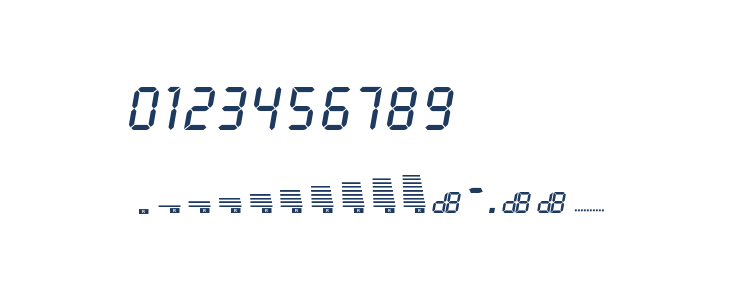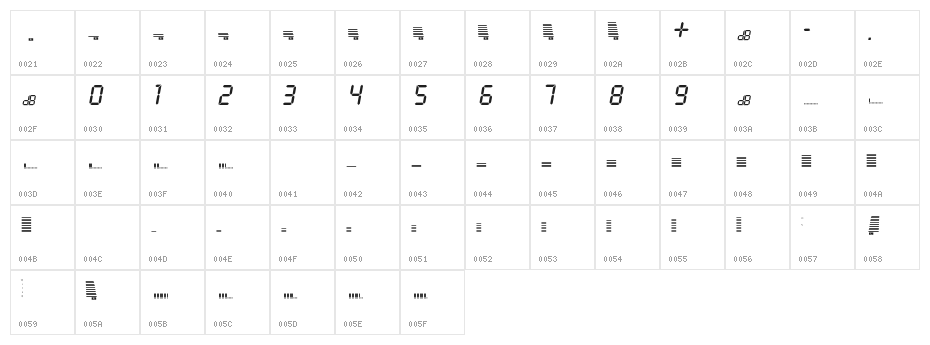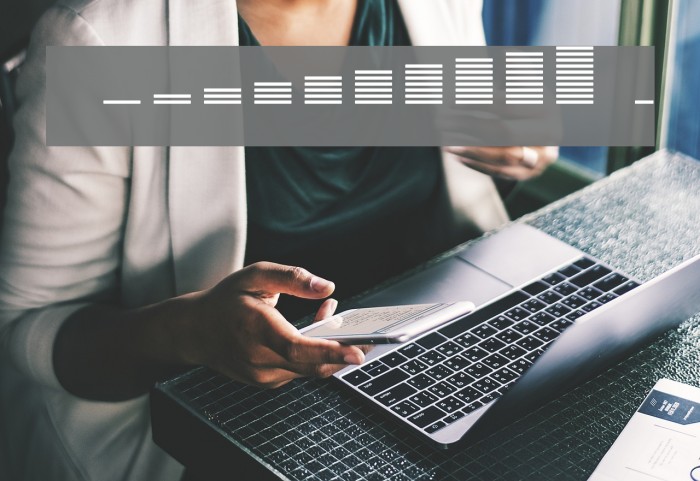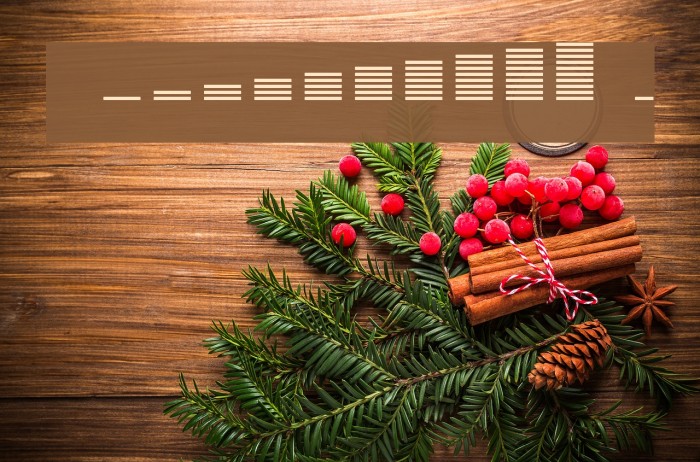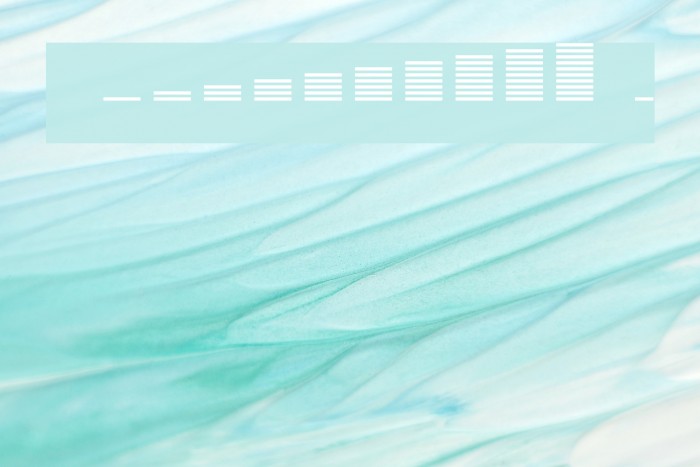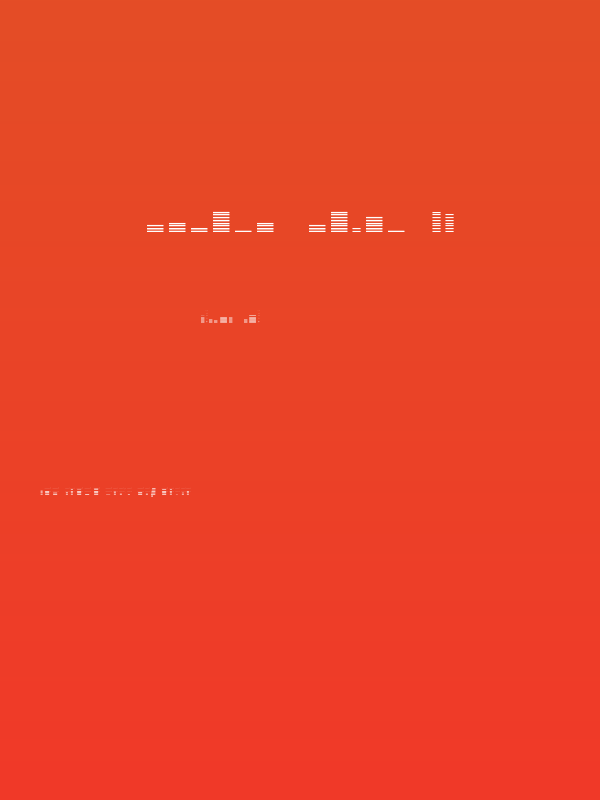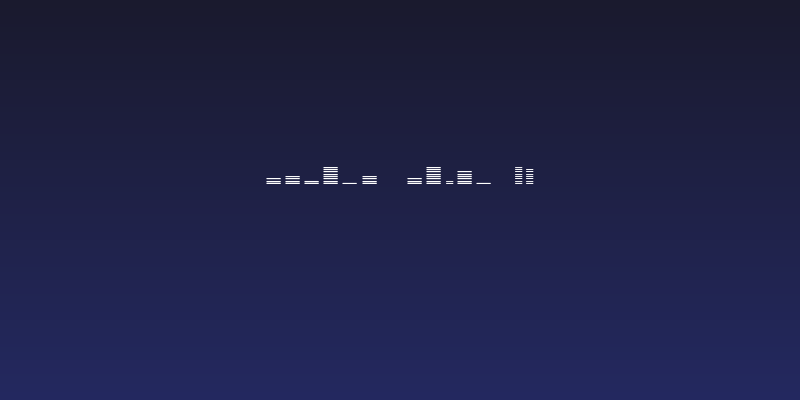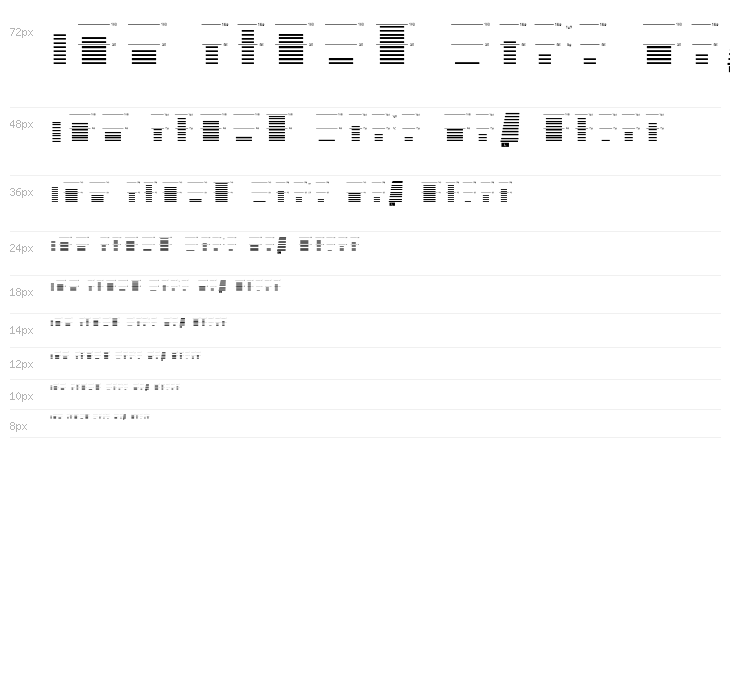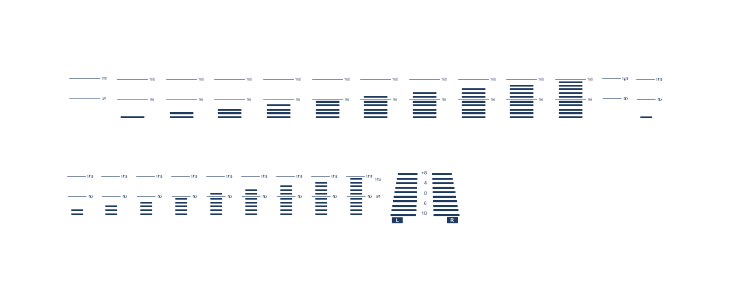
Decibel Dingbats Font
Decibel Dingbats Description
This font is a unique collection of symbols and numbers that resemble digital equalizer bars and audio level indicators. The characters are composed of horizontal lines stacked vertically, creating a visual representation of sound levels. The numbers are styled in a digital, seven-segment display format, reminiscent of old digital clocks or electronic devices. This font is highly specialized, focusing on a theme of audio and sound visualization, making it ideal for projects related to music, sound engineering, or digital displays. The design is clean and modern, with a strong emphasis on geometric shapes and uniformity.
| Use Case | Logos, Digital displays, Themed graphics |
| Proposed Projects | Ideal for music-related graphics, sound engineering visuals, digital displays, and themed event posters. |